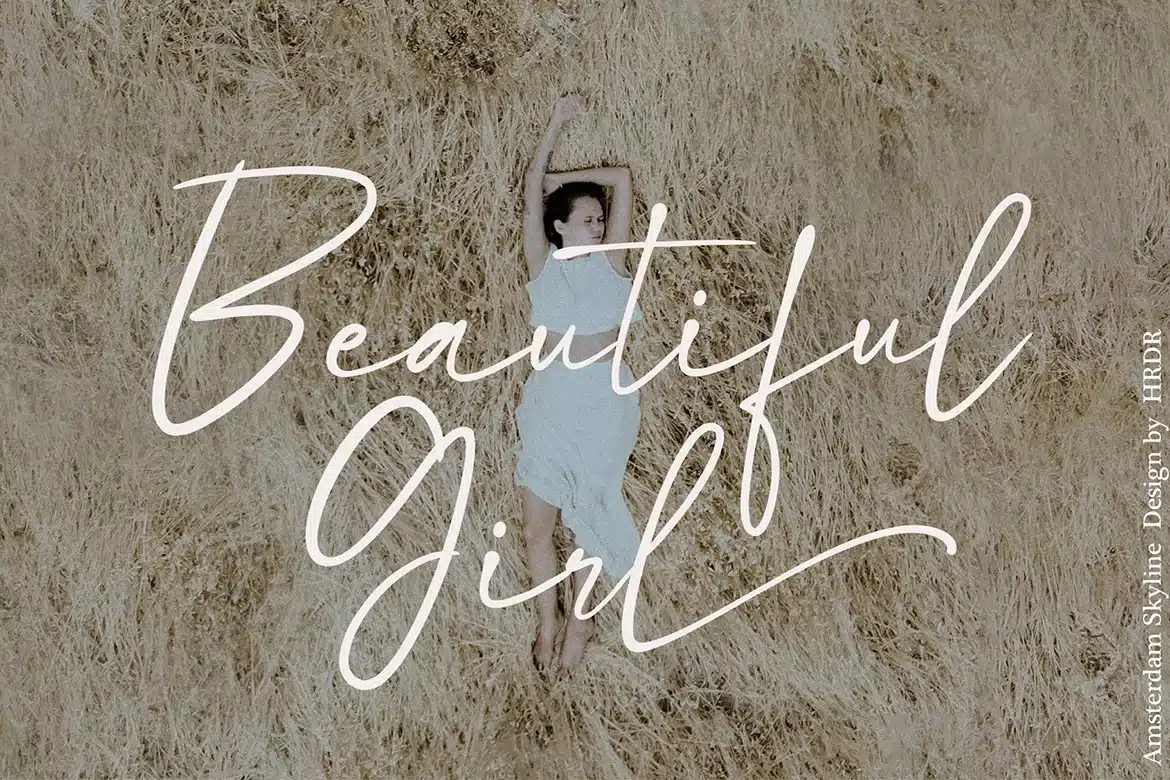
Amsterdam Skyline Font
Amsterdam Skyline is a modern calligraphy font with handwritten.
Amsterdam Skyline includes a full set of lovely uppercase and lowercase letters, multilingual symbols, numerals, punctuation and ligatures.
Amsterdam Skyline suitable for branding, wedding invitations, and other romantic projects.